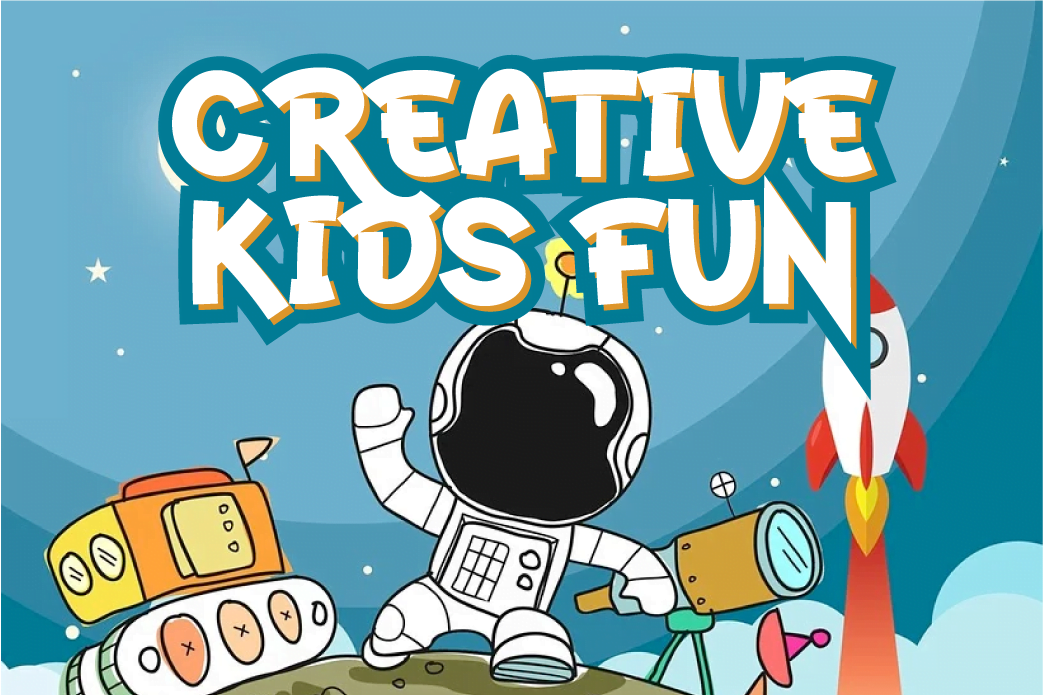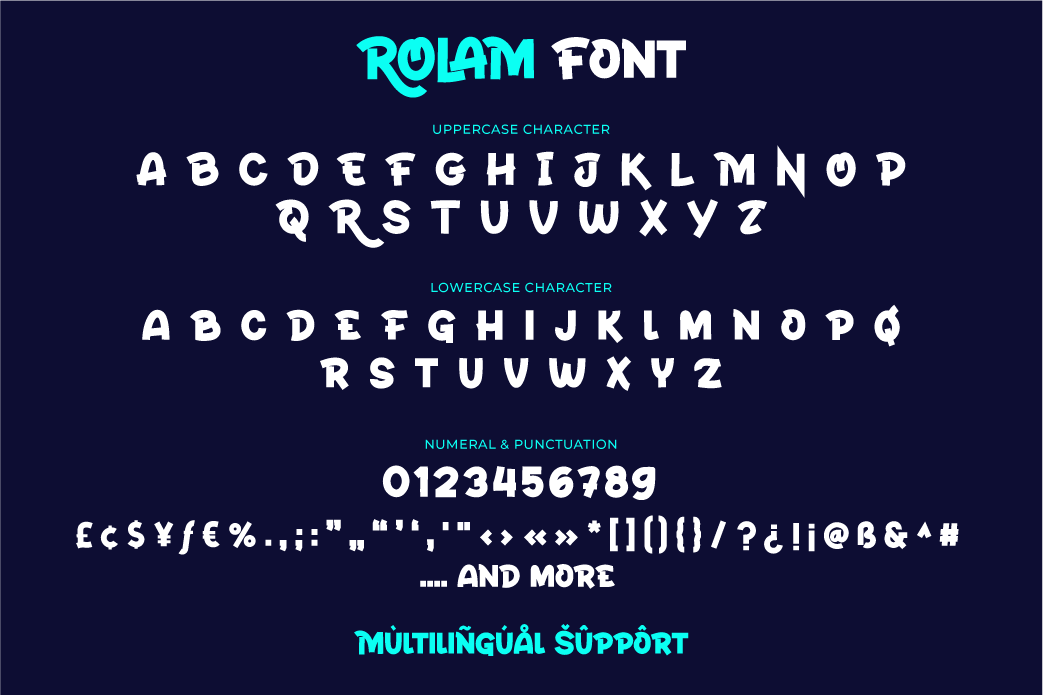
Rolam
Introducing “Rolam” – Sanserif with a new look, playful and flexible
Bold, solid, clear, and strong characteristics make this font look beautiful in your various design projects.
This font is made with passionate pleasure and passionate passion applied to this font design, so this font is suitable for offline or online games, PC or smartphone games, adventure posters, children’s movie titles, food titles and logos, magazines, youtube cover images, social media page covers, banner headlines, children’s book titles, film titles, and more.